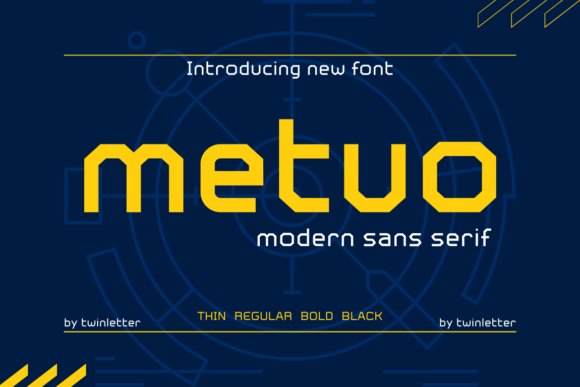
**Introducing Metuo: The Wild West Font That'll Lasso Your Heart**
Step into the untamed frontier of typography with Metuo, the font that embodies the rugged spirit of the Wild West. Its sharp angles and geometric edges evoke the raw energy of the American frontier, promising to add a touch of untamed adventure to your designs.
Unlike other fonts that tamely follow the herd, Metuo blazes its own trail, offering a unique blend of modernity and raw Western charm. Picture your logo standing tall like a lone cowboy, its bold lines commanding attention from miles away. Or envision your posters transformed into wanted posters, the sharp edges of Metuo adding a touch of intrigue and danger to your message.
Whether you're rustling up a business logo, branding your tech startup, or designing a poster for your next Wild West-themed party, Metuo has got you covered. Its versatility extends beyond the vast prairies of branding, reaching into the bustling streets of advertising and the cozy confines of apparel design. Imagine your T-shirts adorned with Metuo's bold lines, turning heads wherever you roam. Or envision your letterheads bearing the mark of Metuo, adding a touch of Western flair to your professional correspondence.
But Metuo isn't just a pretty face. Its sharp edges and geometric precision ensure that your designs will be as legible as a sheriff's badge, even from a distance. So, whether you're crafting posters for a dusty saloon or designing websites for a modern-day tech company, Metuo will deliver your message with the clarity of a desert sunrise.